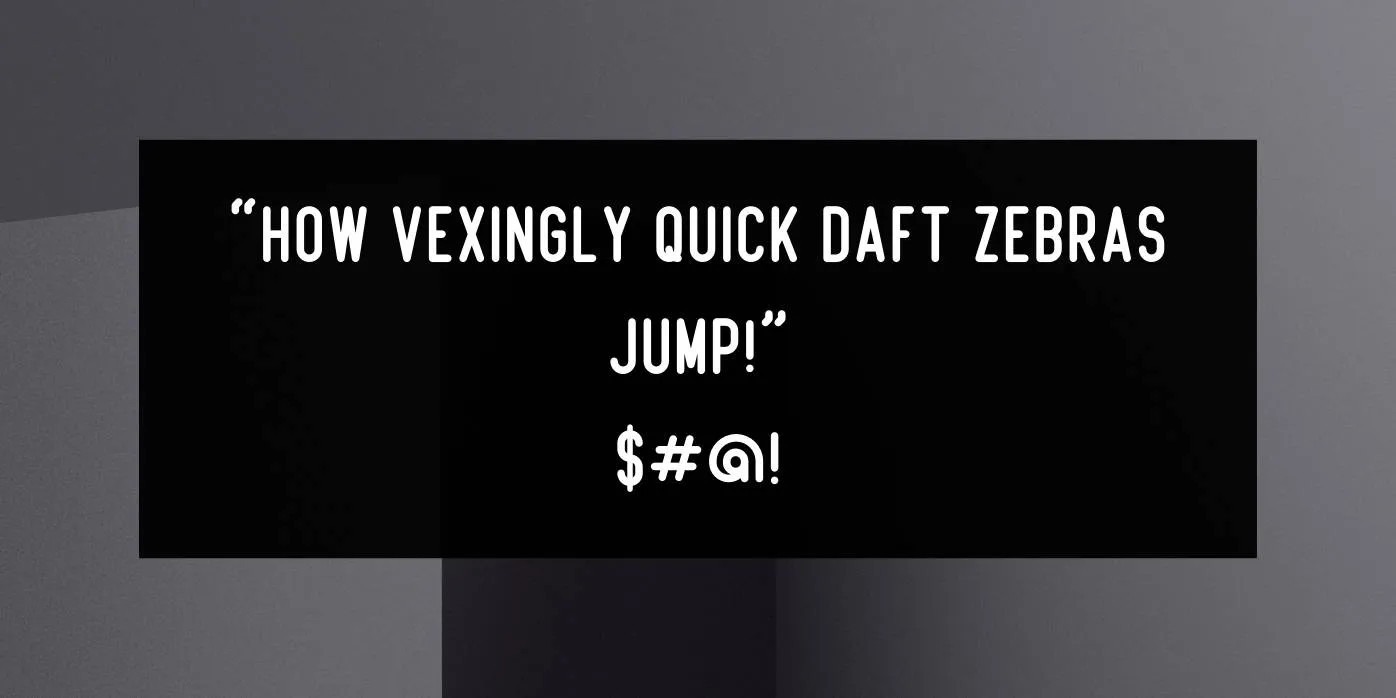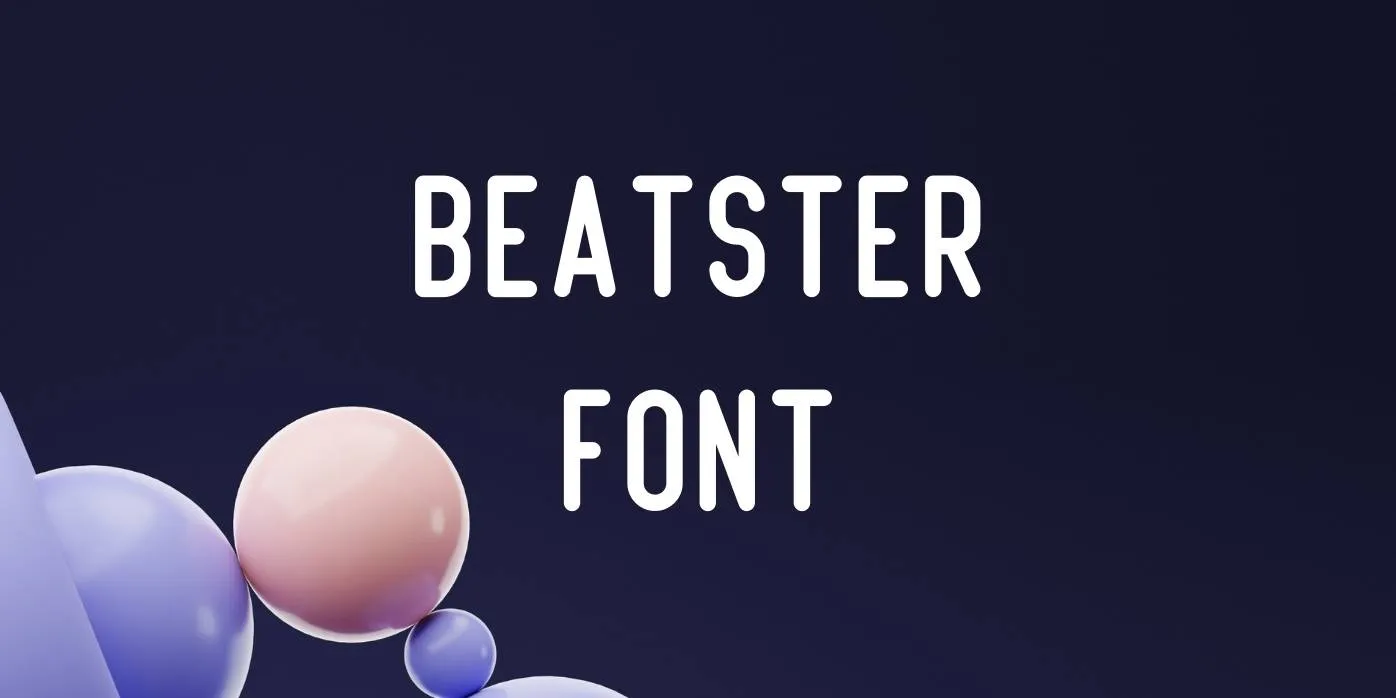
Beatster Font
Beatster Font is a display typeface created by Beatty and Caulfield in 2021. The design was inspired by the work of early 20th-century typeface designer Paul Renner. The typeface is characterized by its clean, geometric shapes and lack of decorative elements. It is suitable for use in both headlines and body text.